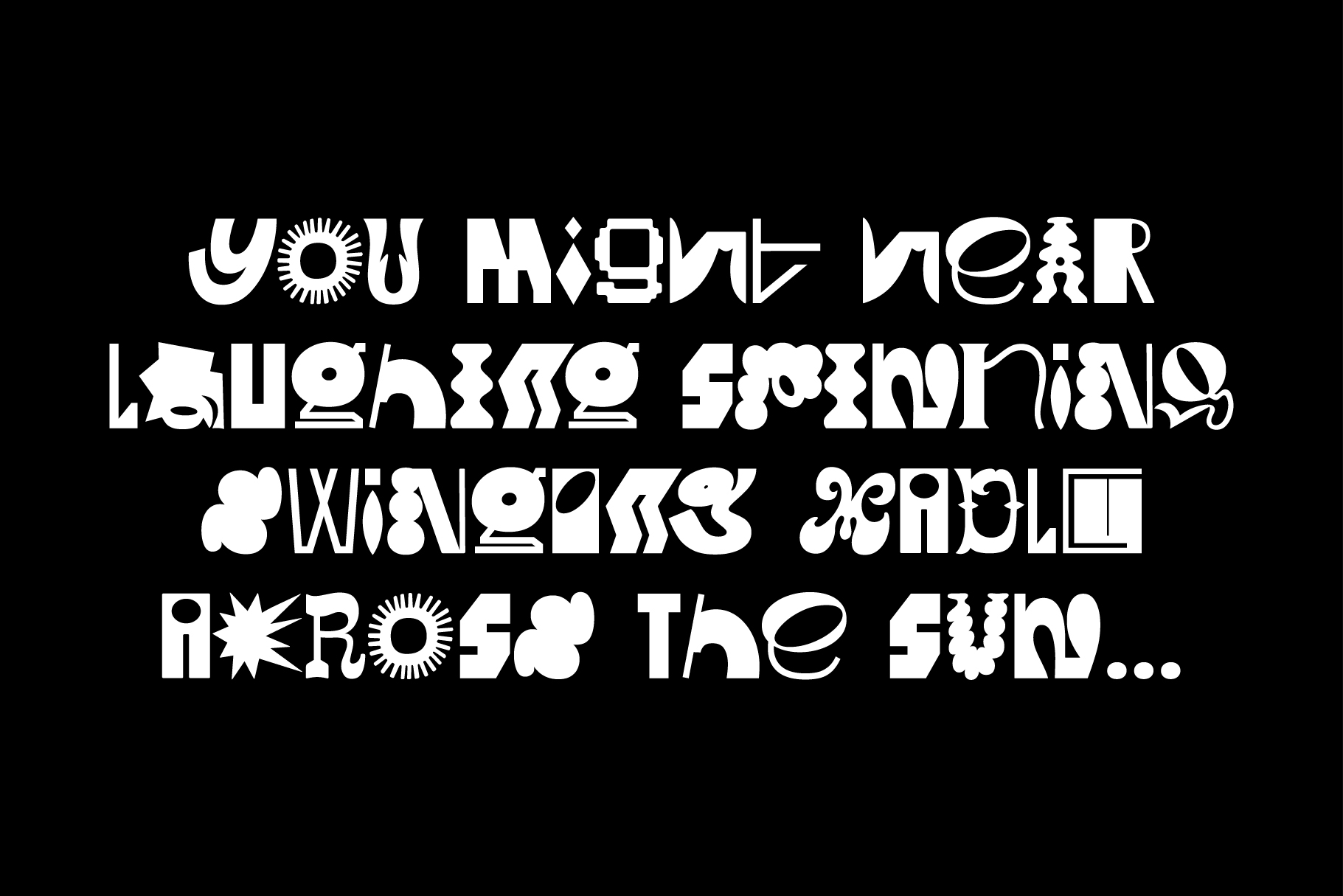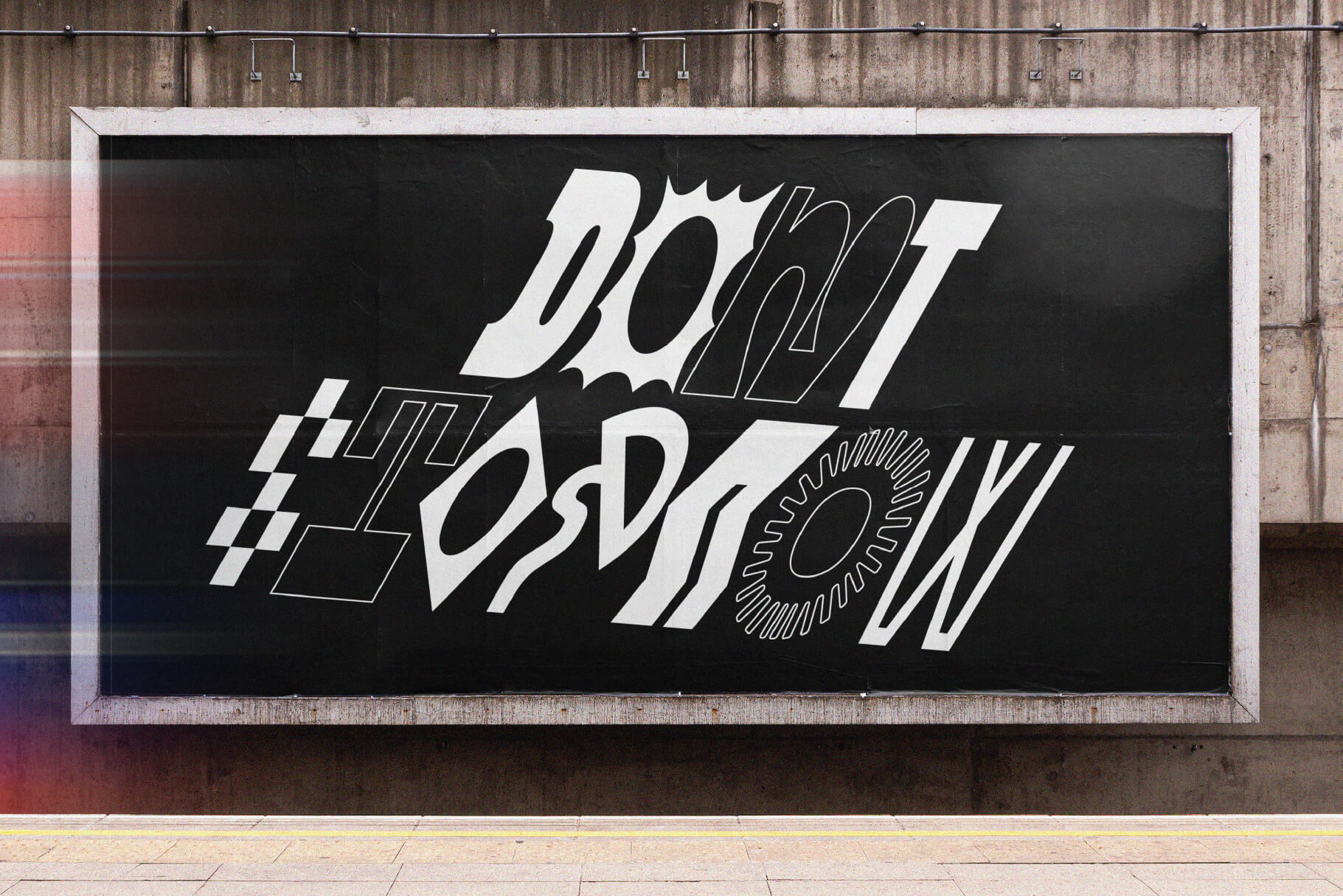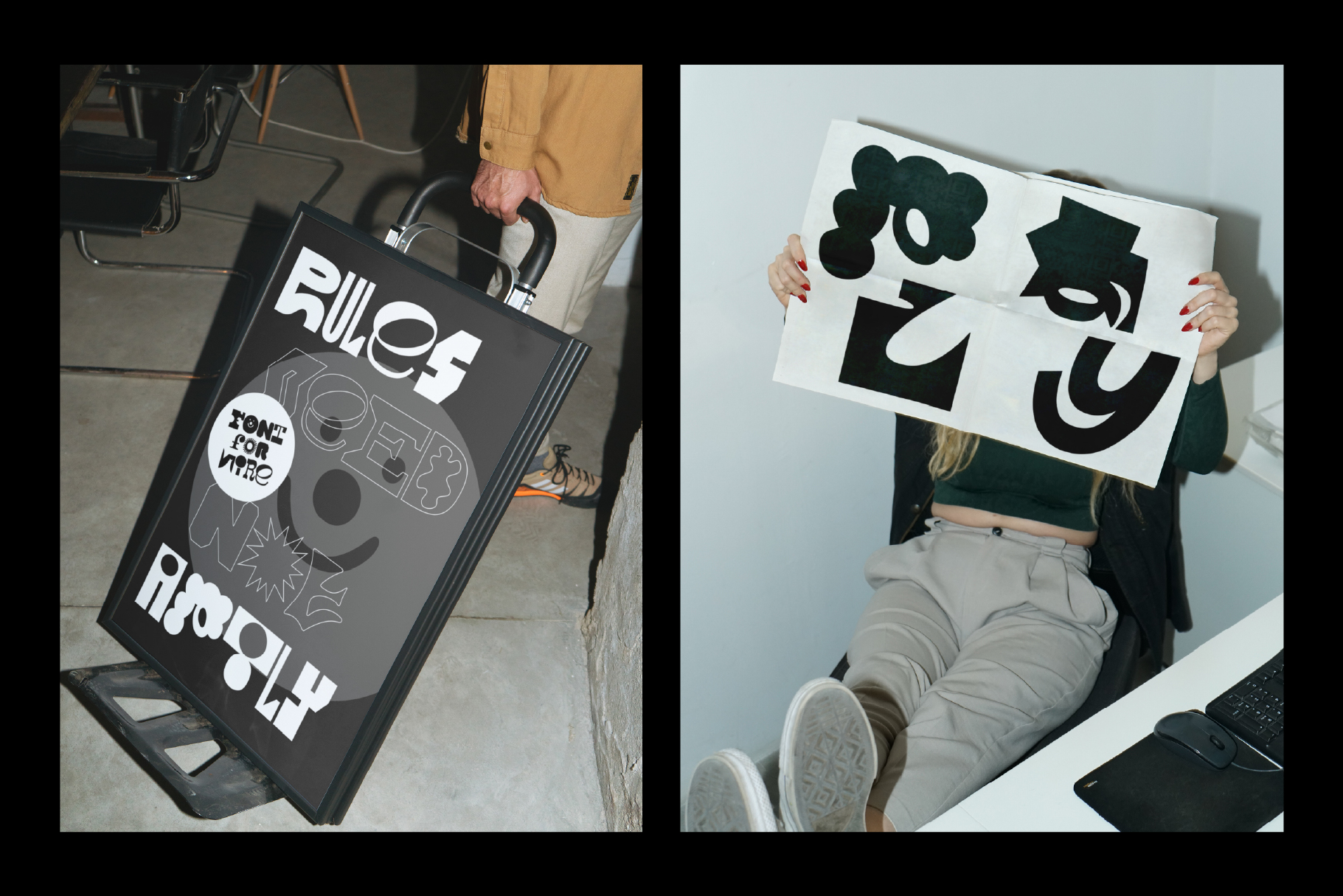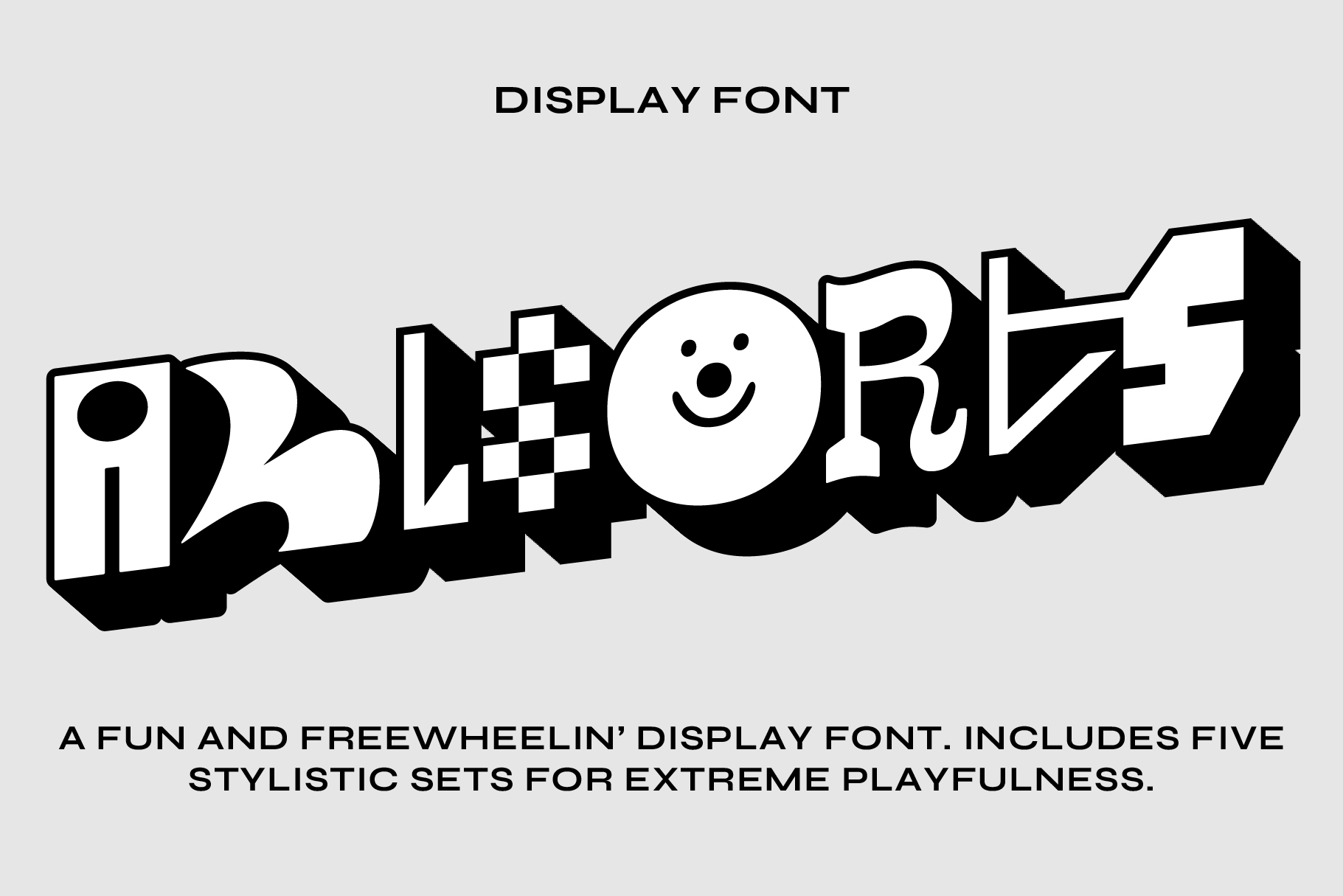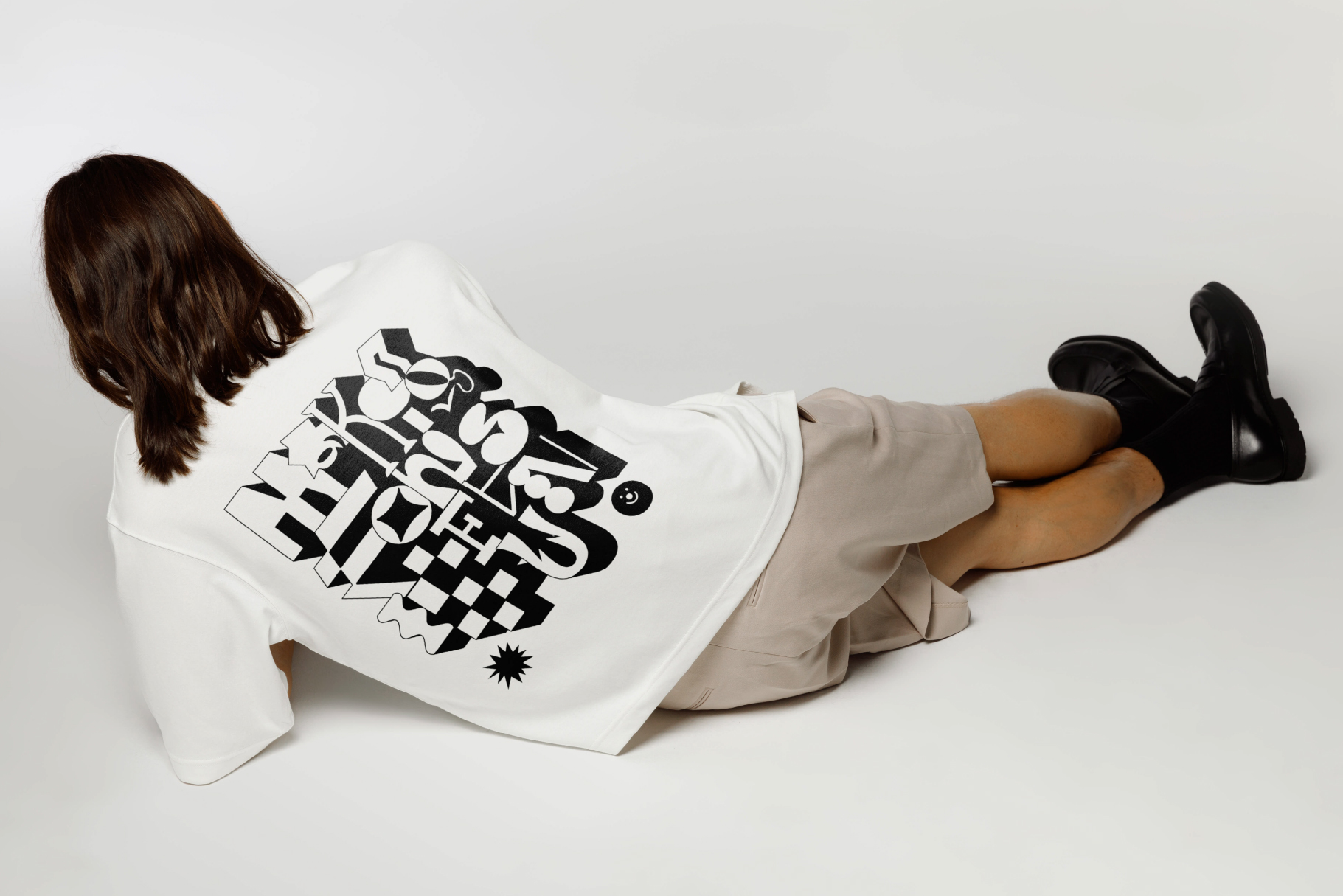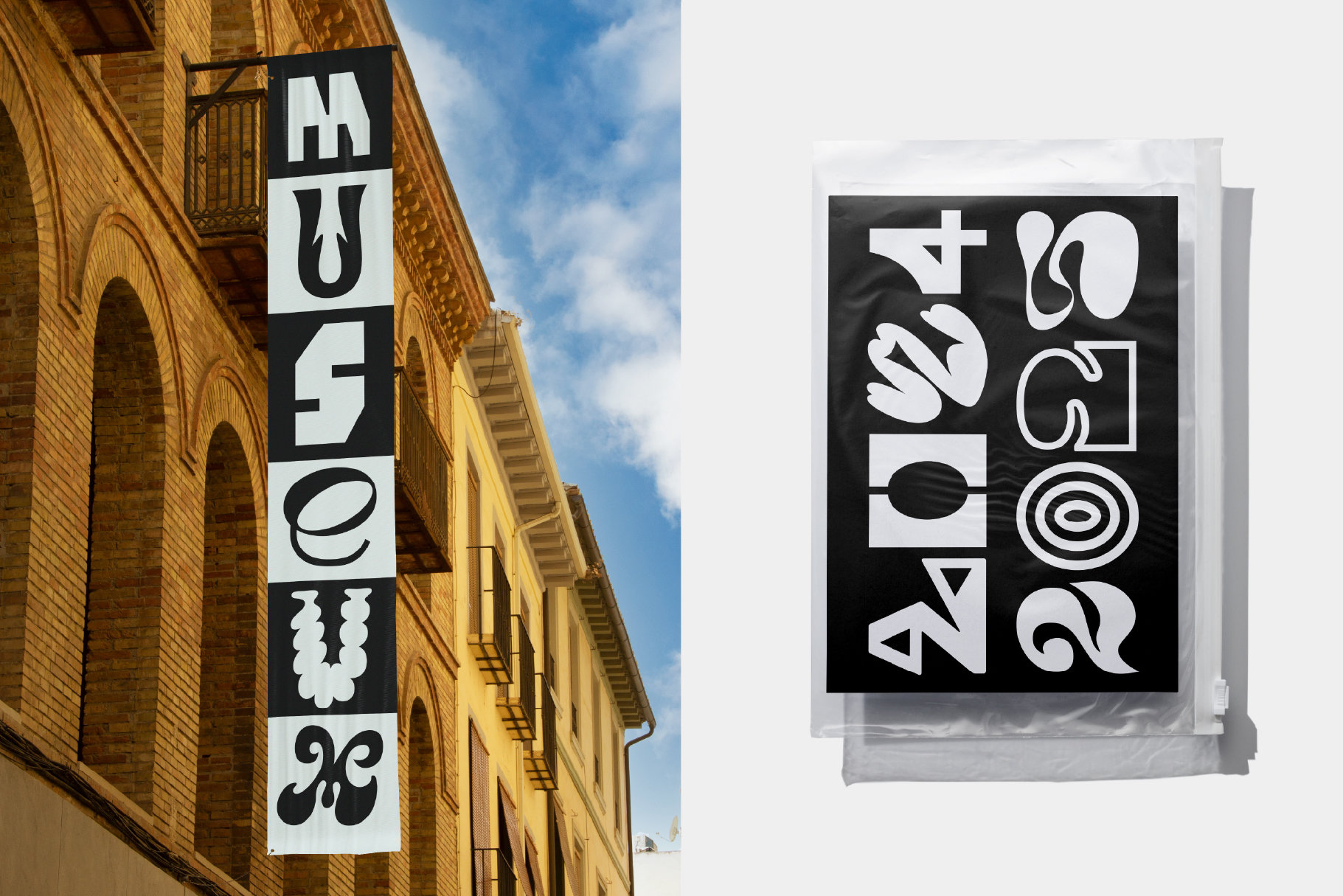
ALLSORTS
Allsorts is a playful display typeface that embraces variety over uniformity. Six stylistic alternates for every letter create endless combinations, resulting in typography that feels lively, expressive, and full of character.